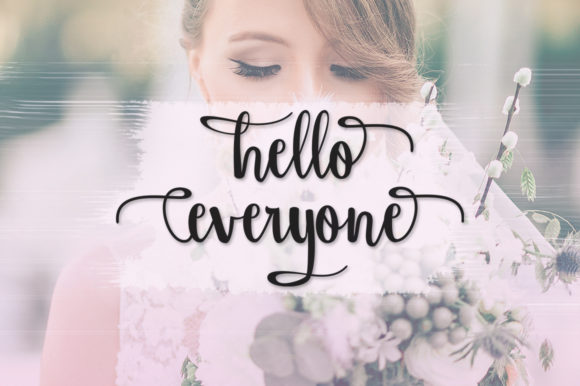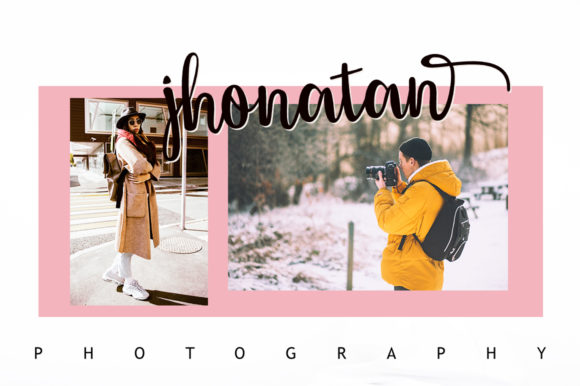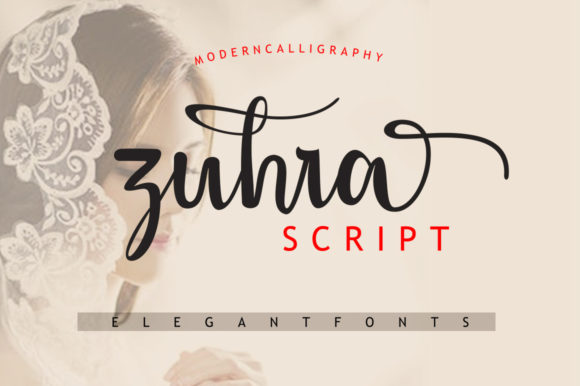
Zuhra Script Font
The Zuhra is a modern script font with an irregular baseline. It has a trendy and feminine style which can be used to create wedding invitations, thank you cards, quotes, logos, greeting cards, and much more!